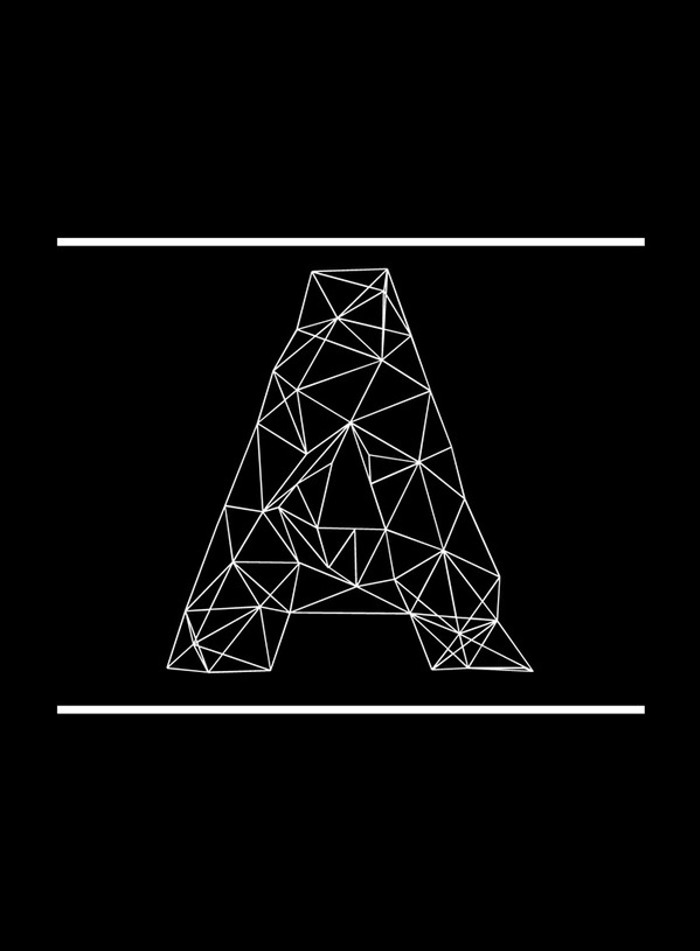
Adamas Font
"Adamas" was first used by Greek and Latin writers for a stone of impenetrable hardness.
The geometry in this font is amazing!
Can be used for Low poly style. I like it.